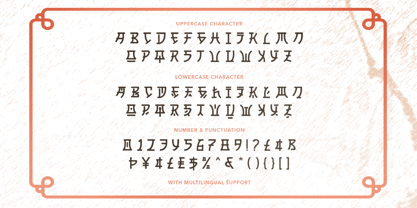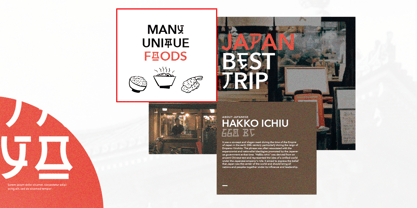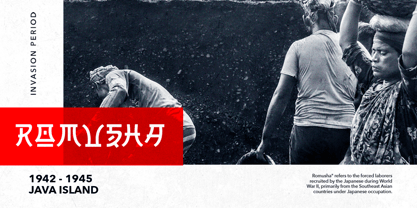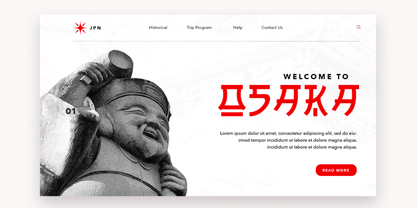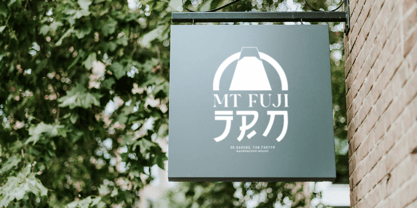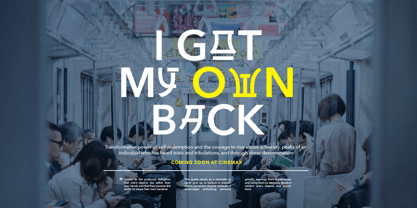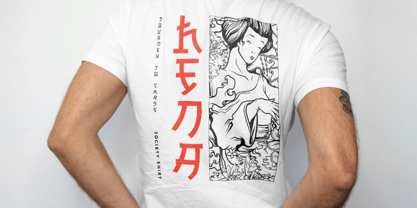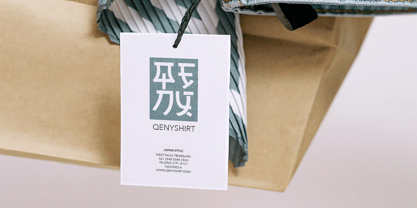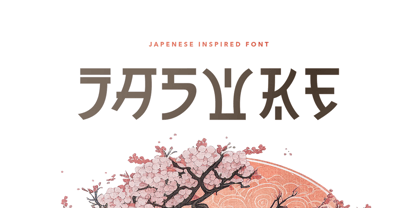
Jasuke
The Jasuke Font Family was designed by Sarid Ezra, Dzikrul Aulia and published by Bale Type. Jasuke contains 1 styles.
Jasuke is a Japanese Inspired font crafted with exceptional taste, seamlessly merging ethnic and cultural elements into each glyph. This font is ideal for enthusiasts of Japanese culture, as well as for those involved in Japanese restaurants, clothing brands, arts, and businesses associated with Japanese culture. You can also combining this font with sans that will make your project more interesting. This font also support multi language!